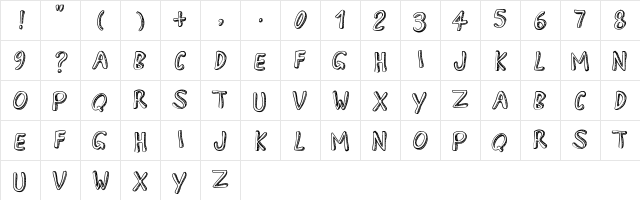
Complete PWApril Medium glyph index. Displaying only characters natively supported by PWApril Medium font.
PWApril is a composed and adaptable typeface that performs quietly and consistently across a wide range of design contexts.